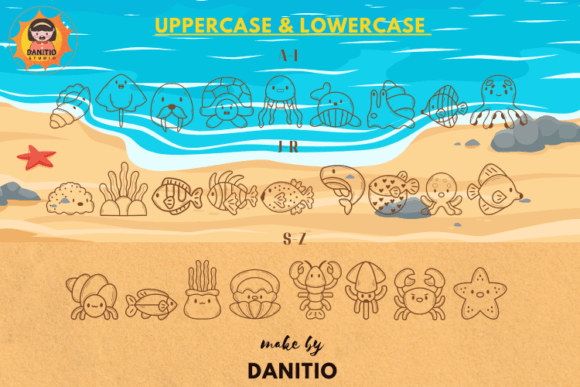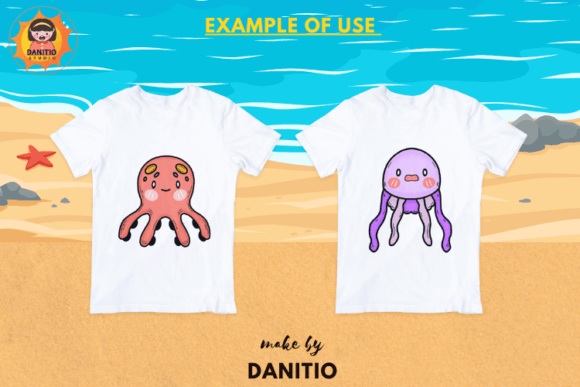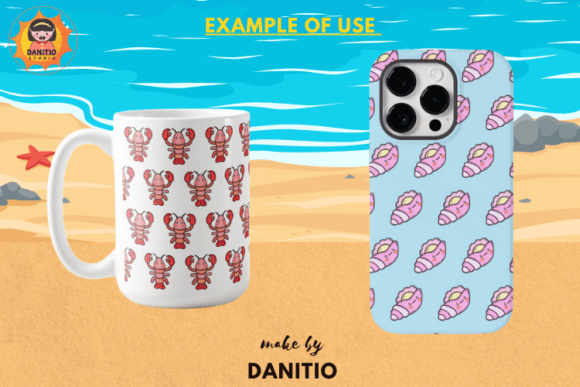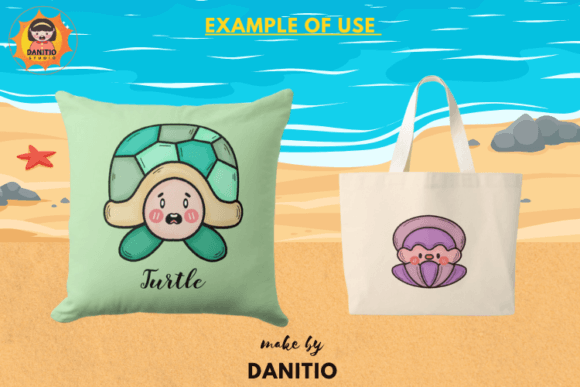
Introduction to Sea Life Font Font
Fonts play a crucial role in design, and the Sea Life Font font is a typeface that brings both character and versatility to any project. Whether you’re working on a branding project, a website, or a print design, the Sea Life Font font offers a unique style that can elevate your work.
Sea Life is a charming dingbats font with cute sea creatures.
It is full of various sea creatures such as fish, squid, puffer fish, sharks, whales, shrimp, squid, corals, and many more which I drew myself are cool and cute This font is a fun addition to any project.
Key Features of Sea Life Font Font
Why Choose Sea Life Font Font?
The Sea Life Font font is more than just a typeface – it’s a design tool that helps you communicate your message with style and clarity. Its unique character set and versatile design make it suitable for a wide range of applications, from elegant invitations to bold headlines.
With its carefully crafted letterforms and balanced proportions, the Sea Life Font font ensures readability and visual appeal across all mediums.
What makes Sea Life Font font special?
The Sea Life Font font stands out with its unique design, exceptional readability, and versatility across various design applications.